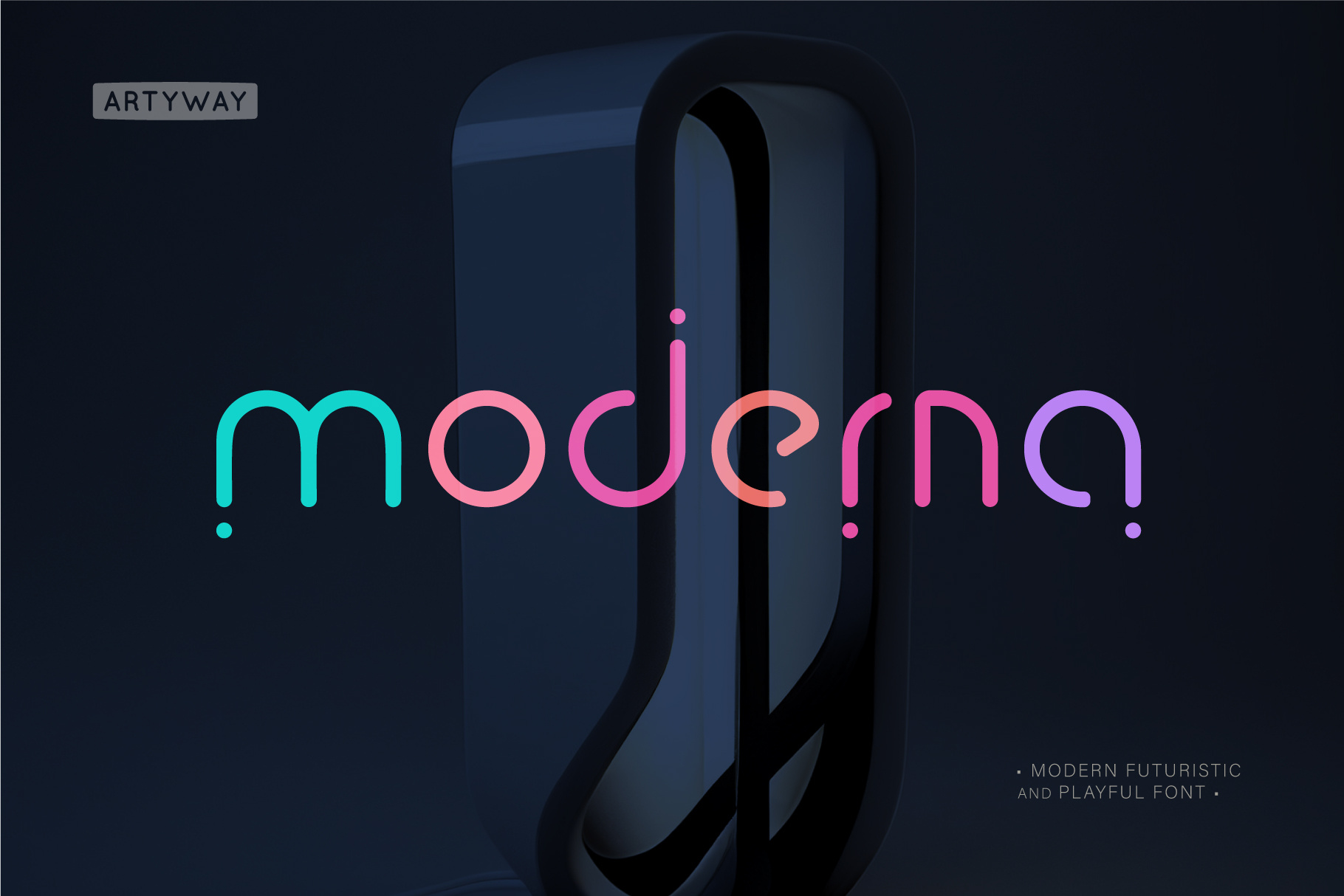
Modern Minimalist Logo Font
Moderna Typeface — Experience modern minimalism with a touch of elegance. Moderna blends futuristic design with fluid curves, creating a clean and dynamic typeface perfect for contemporary projects.
Branding and tech startups
UI/UX design elements
Modern poster designs
Digital content creation
✅ Gradient color integration for a sleek look
✅ Soft curves with a futuristic touch
✅ Versatile for both light and dark themes